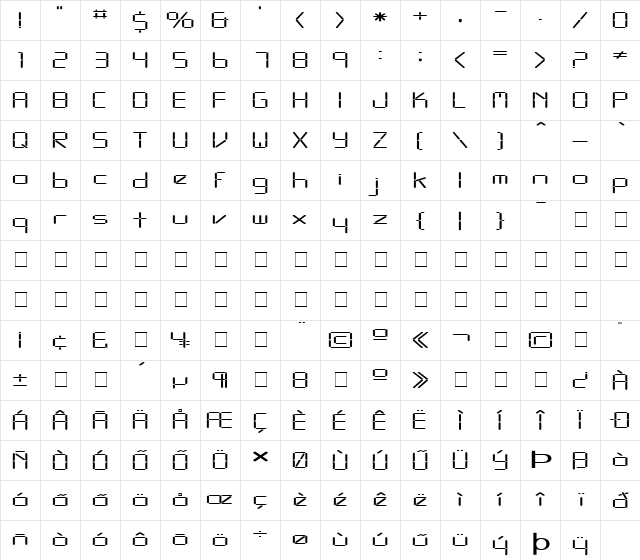
DIGITAL10 EX HU Normal
Design Context for DIGITAL10 EX HU
DIGITAL10 EX HU has a distinctly futuristic character, with geometric precision and clean angles that feel at home in technology, gaming, and sci-fi contexts.
Pro Tip: Try DIGITAL10 EX HU with generous letter-spacing in UI labels and navigation - the geometric forms benefit from room to breathe.